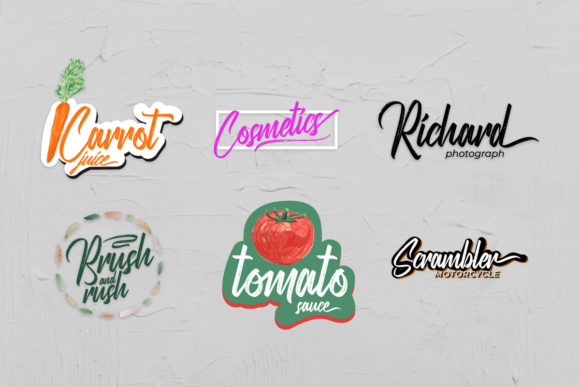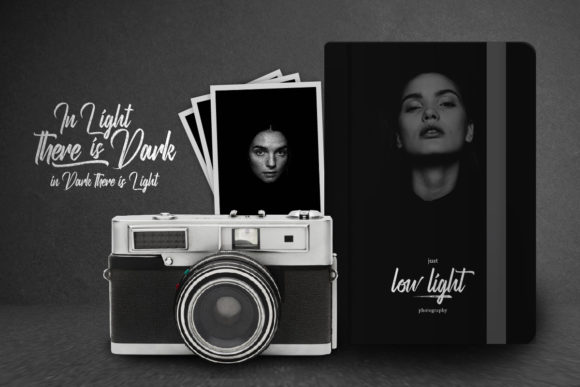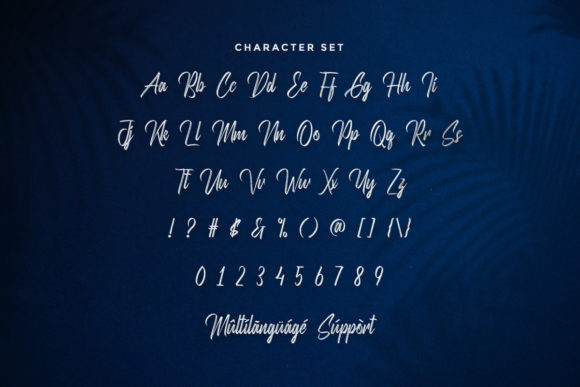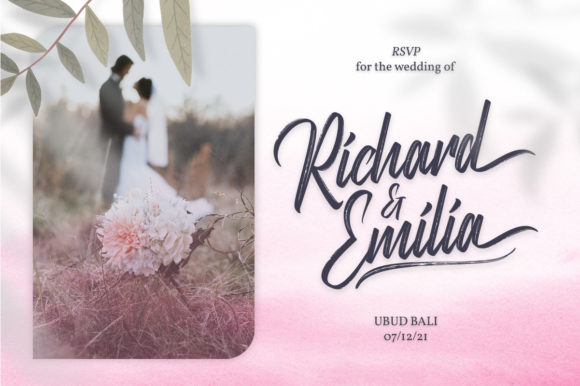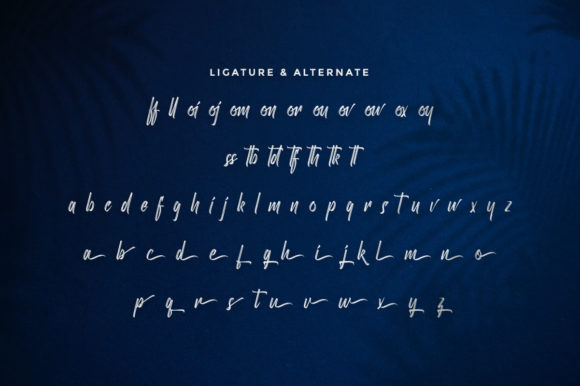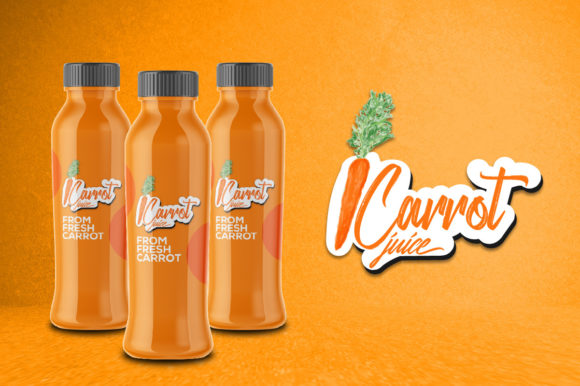
Introduction to Hardassies Font Font
Fonts play a crucial role in design, and the Hardassies Font font is a typeface that brings both character and versatility to any project. Whether you’re working on a branding project, a website, or a print design, the Hardassies Font font offers a unique style that can elevate your work.
Hardassies is a gorgeous and cursive brushed handwritten font, crafted to give your headlines and logotype projects a stylish touch.
This font reads as strong, confident, and dynamic and can add tons of nostalgic character to your designs Hardassies is PUA encoded which means you can access all of the glyphs and swashes with ease.
The Hardassies Font font is more than just a typeface – it’s a design tool that helps you communicate your message with style and clarity. Its unique character set and versatile design make it suitable for a wide range of applications, from elegant invitations to bold headlines.
With its carefully crafted letterforms and balanced proportions, the Hardassies Font font ensures readability and visual appeal across all mediums.
The Hardassies Font font stands out with its unique design, exceptional readability, and versatility across various design applications.